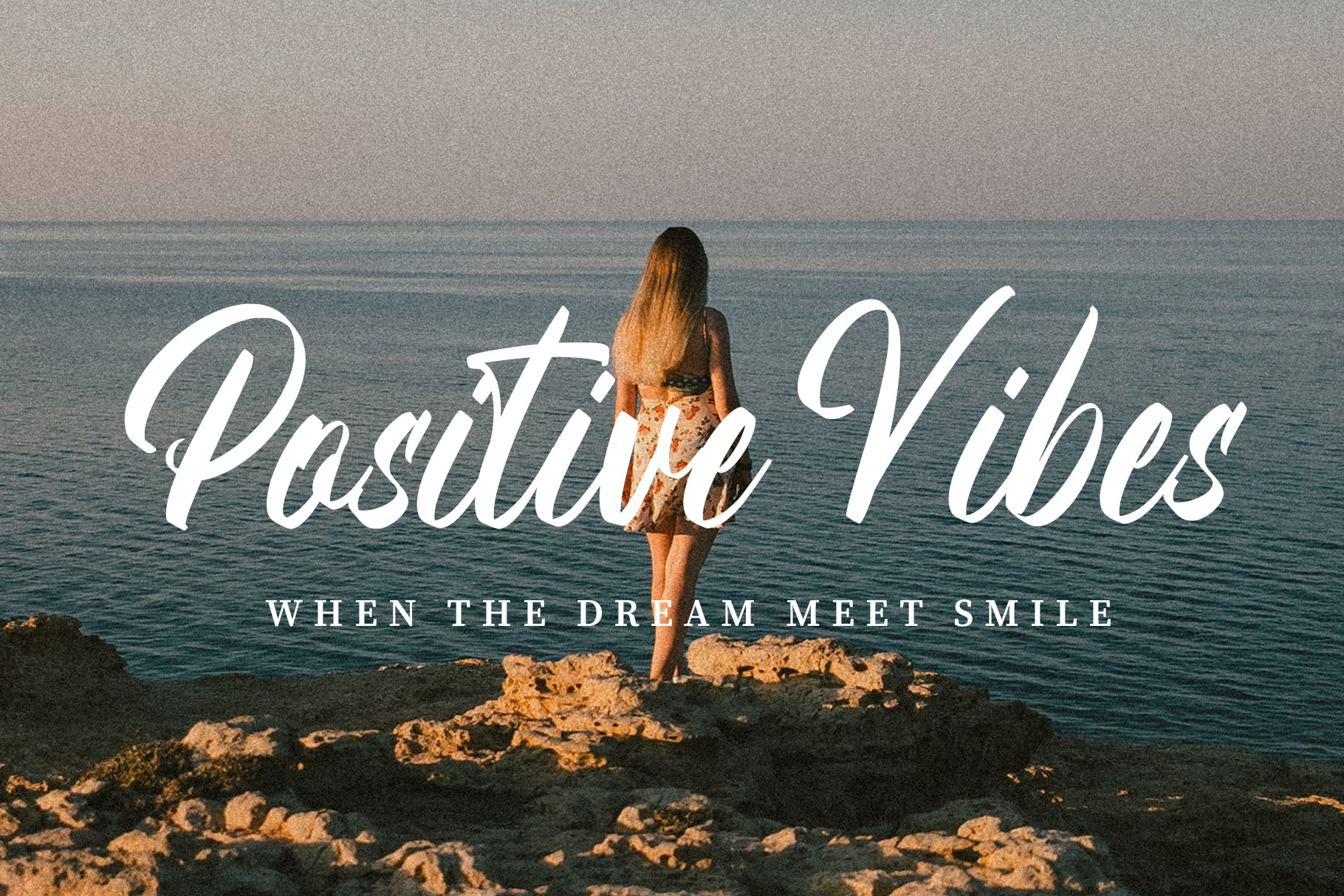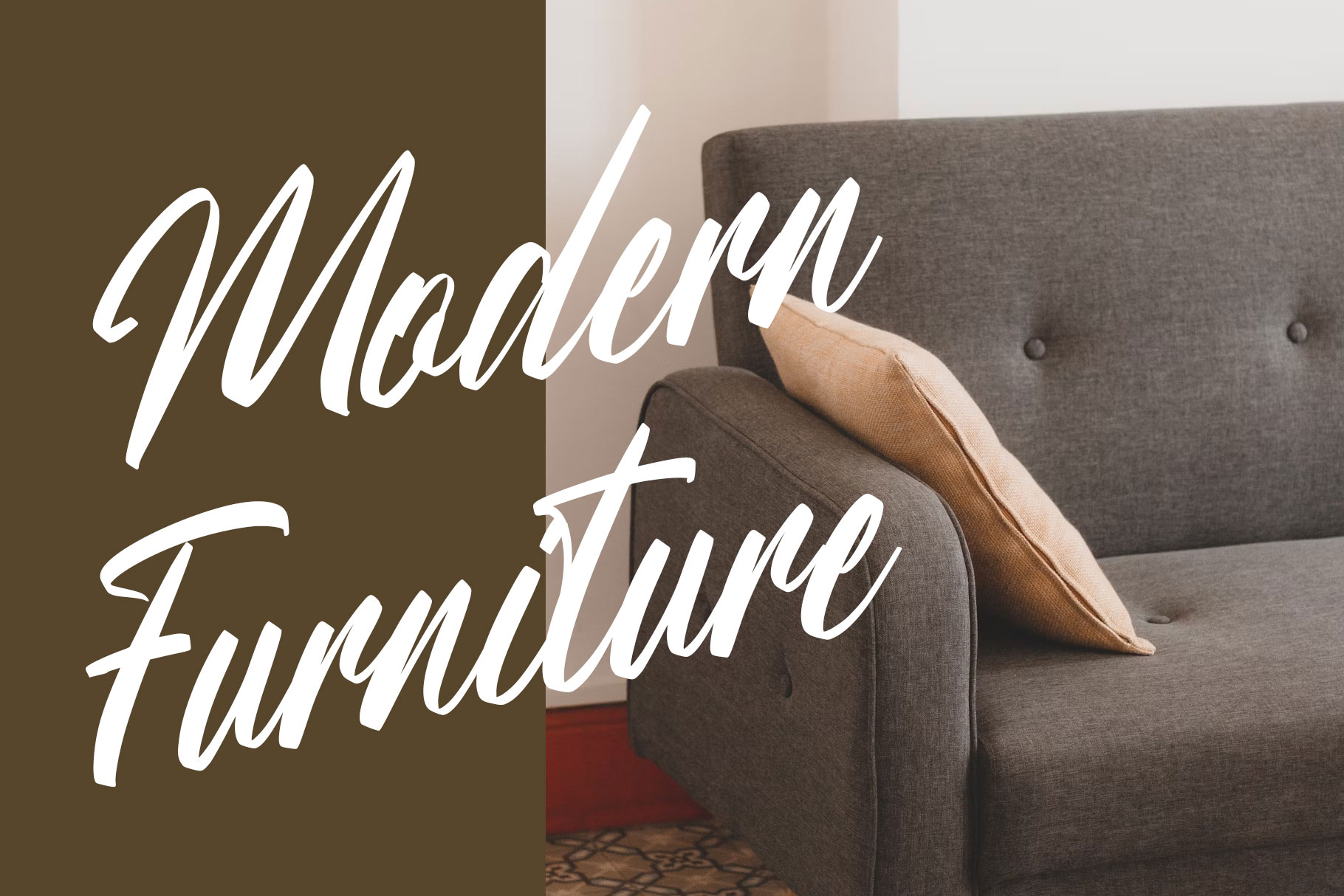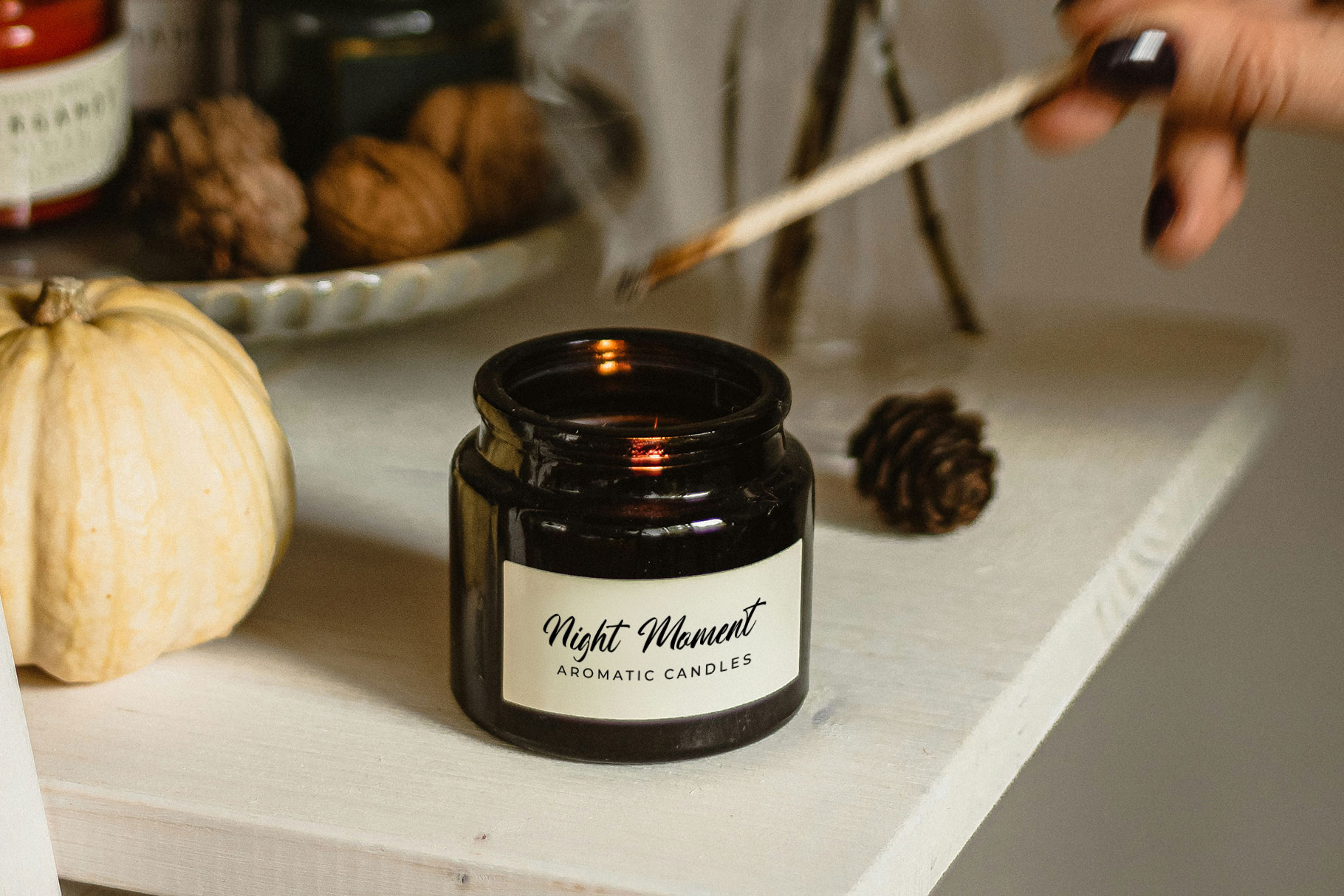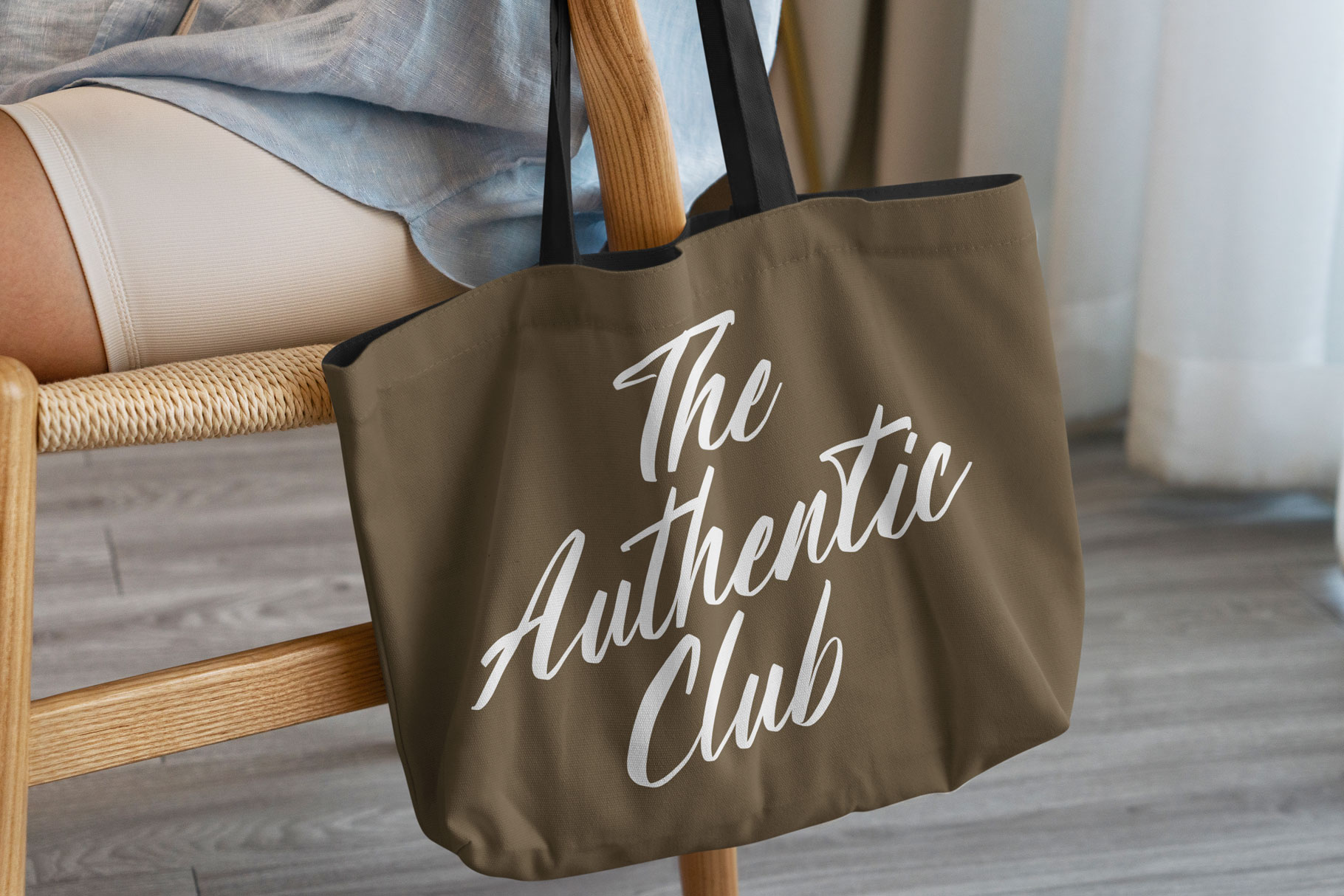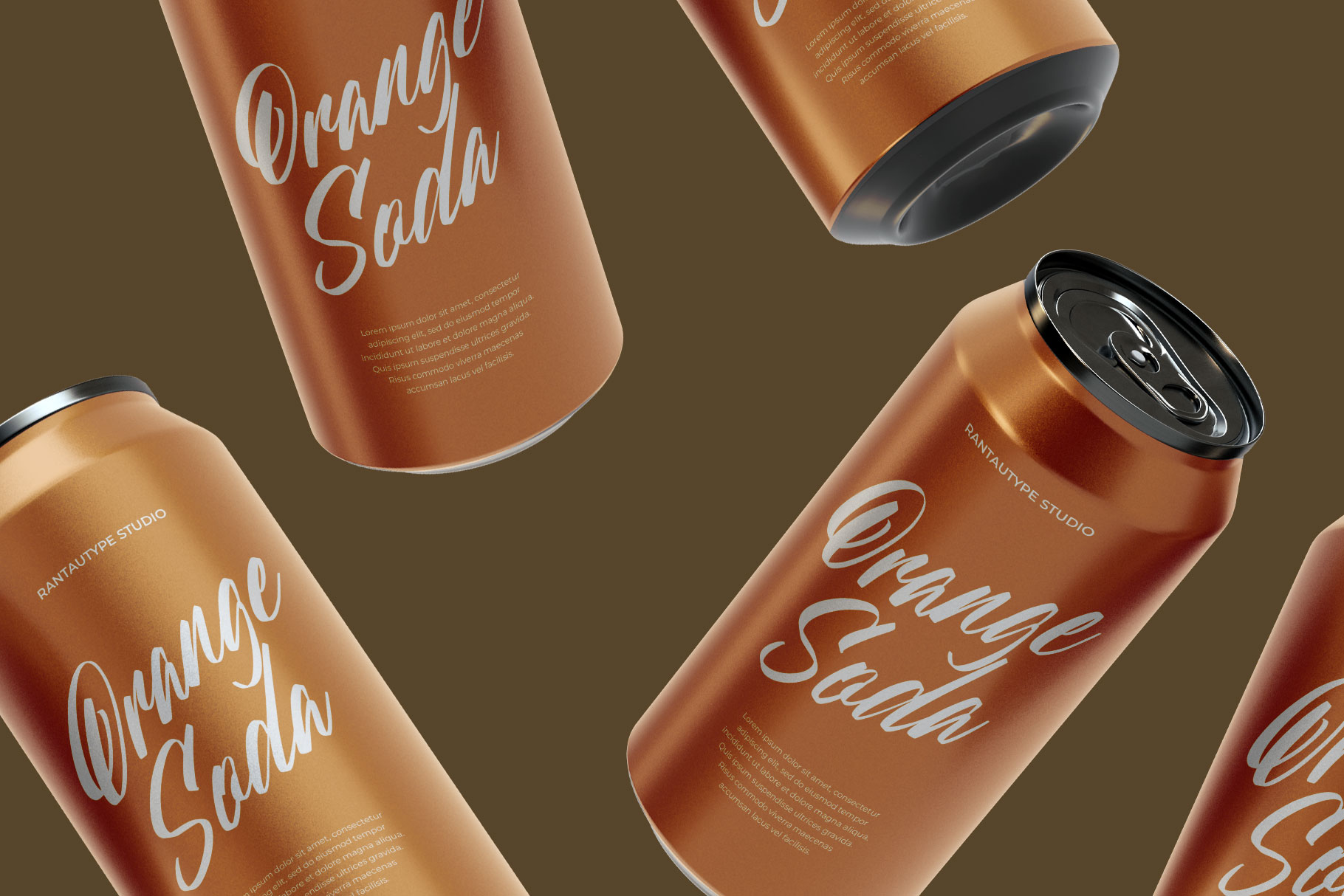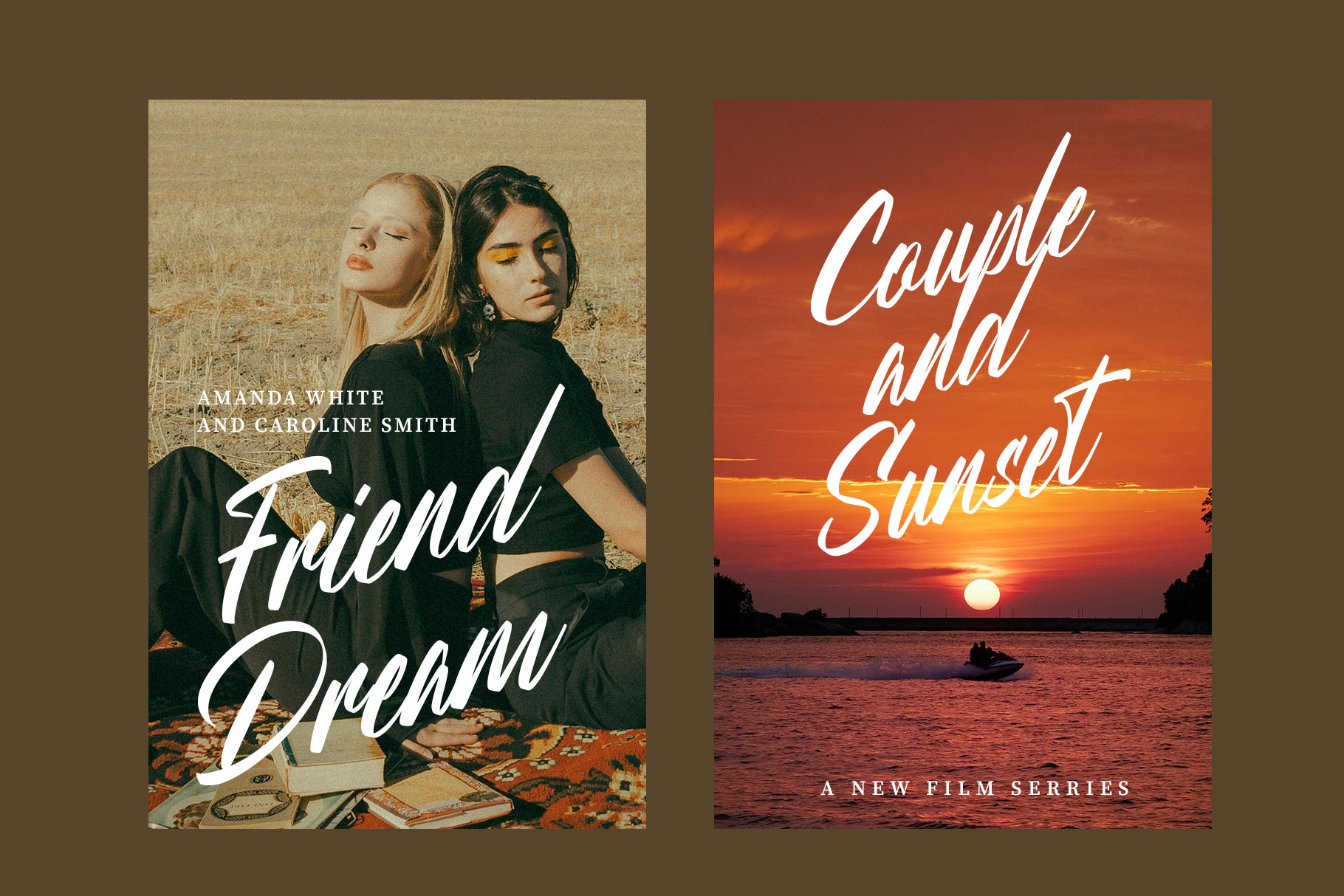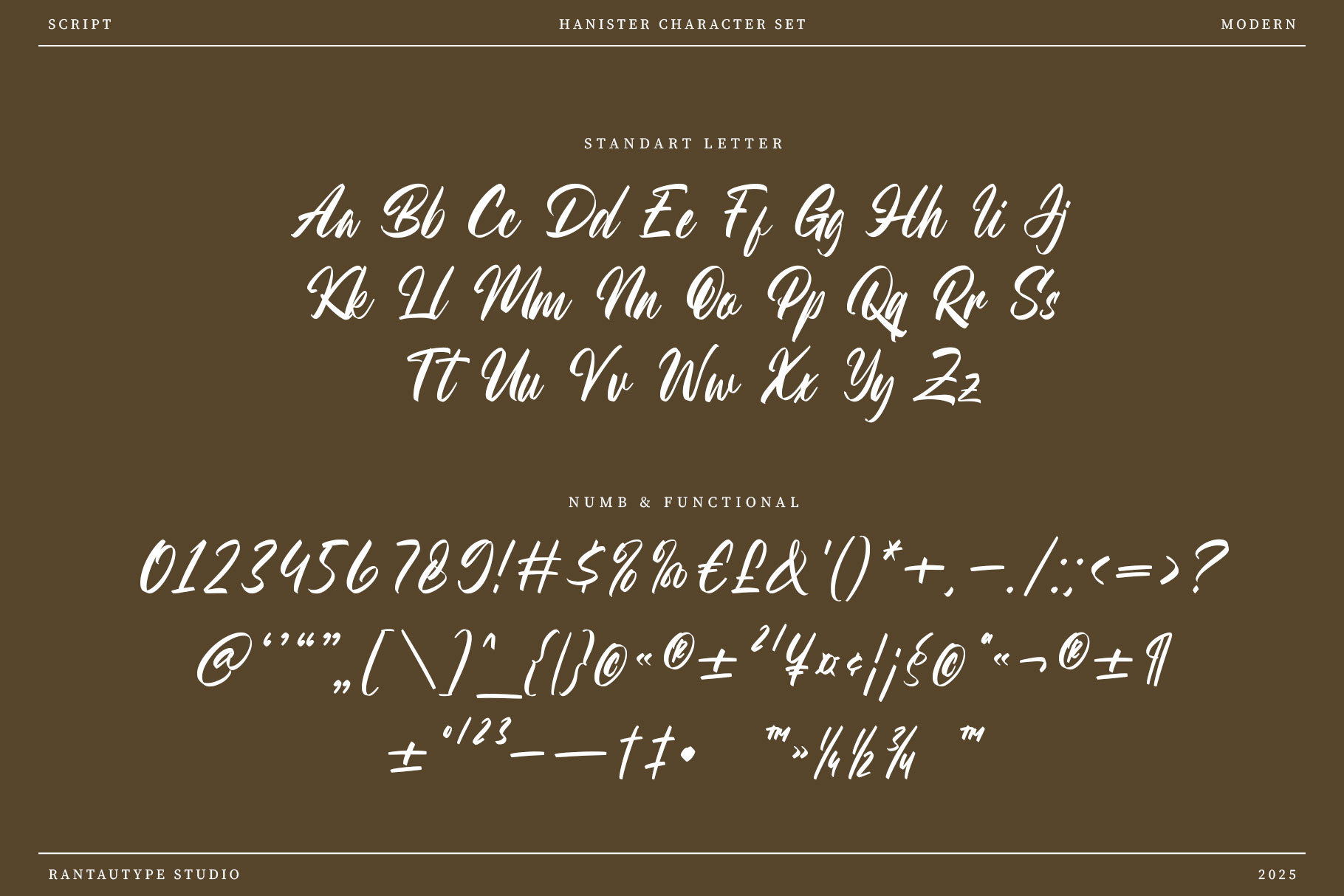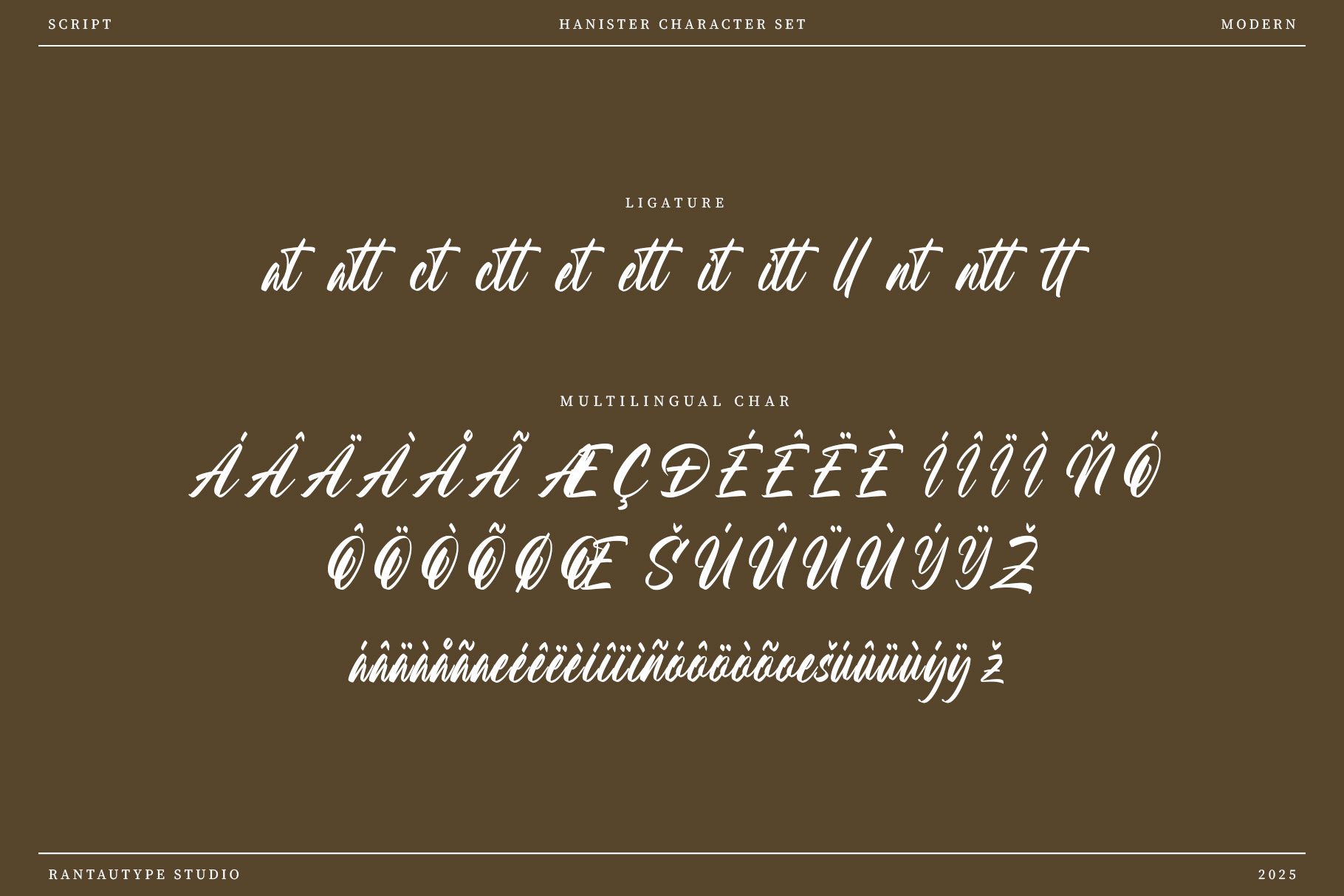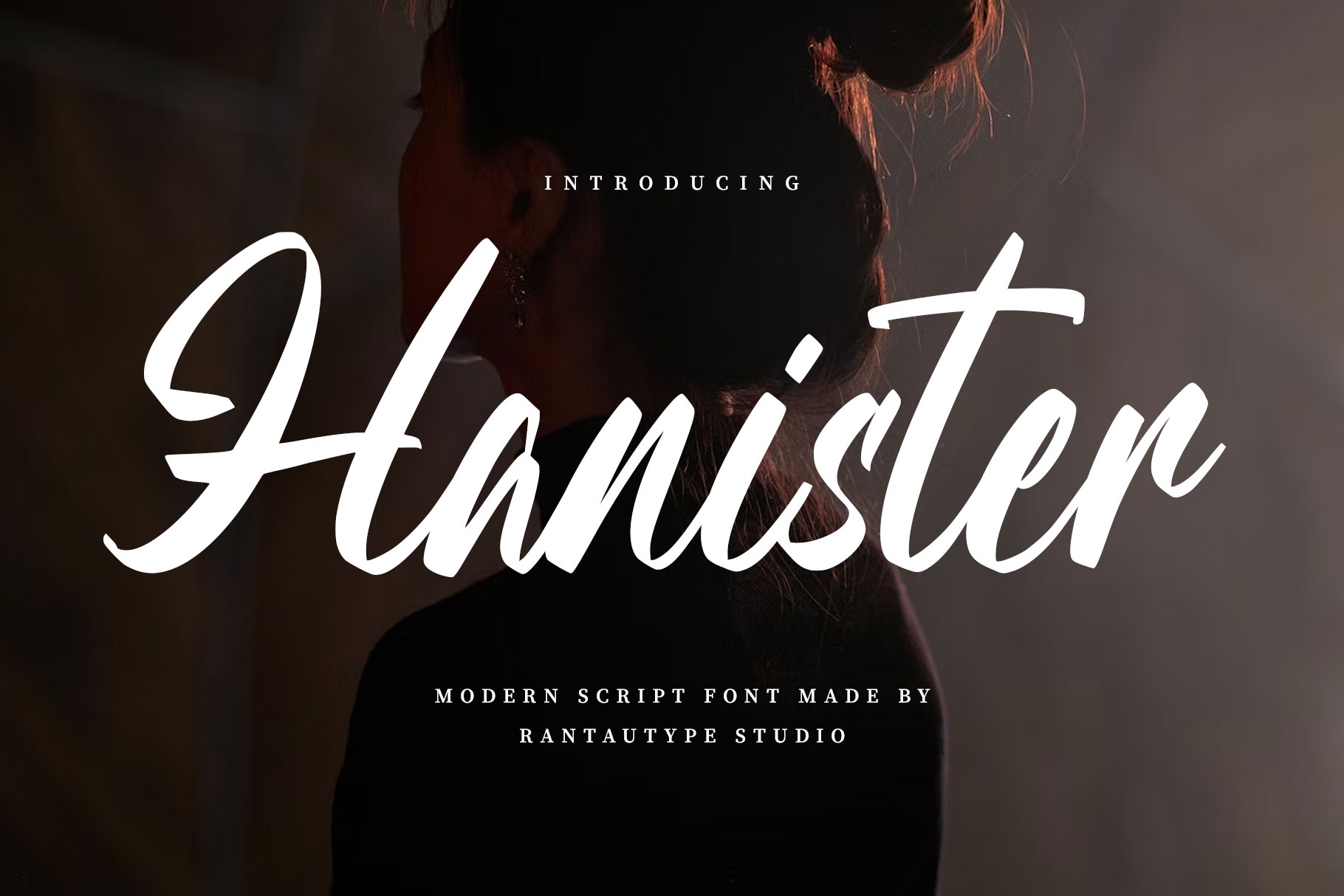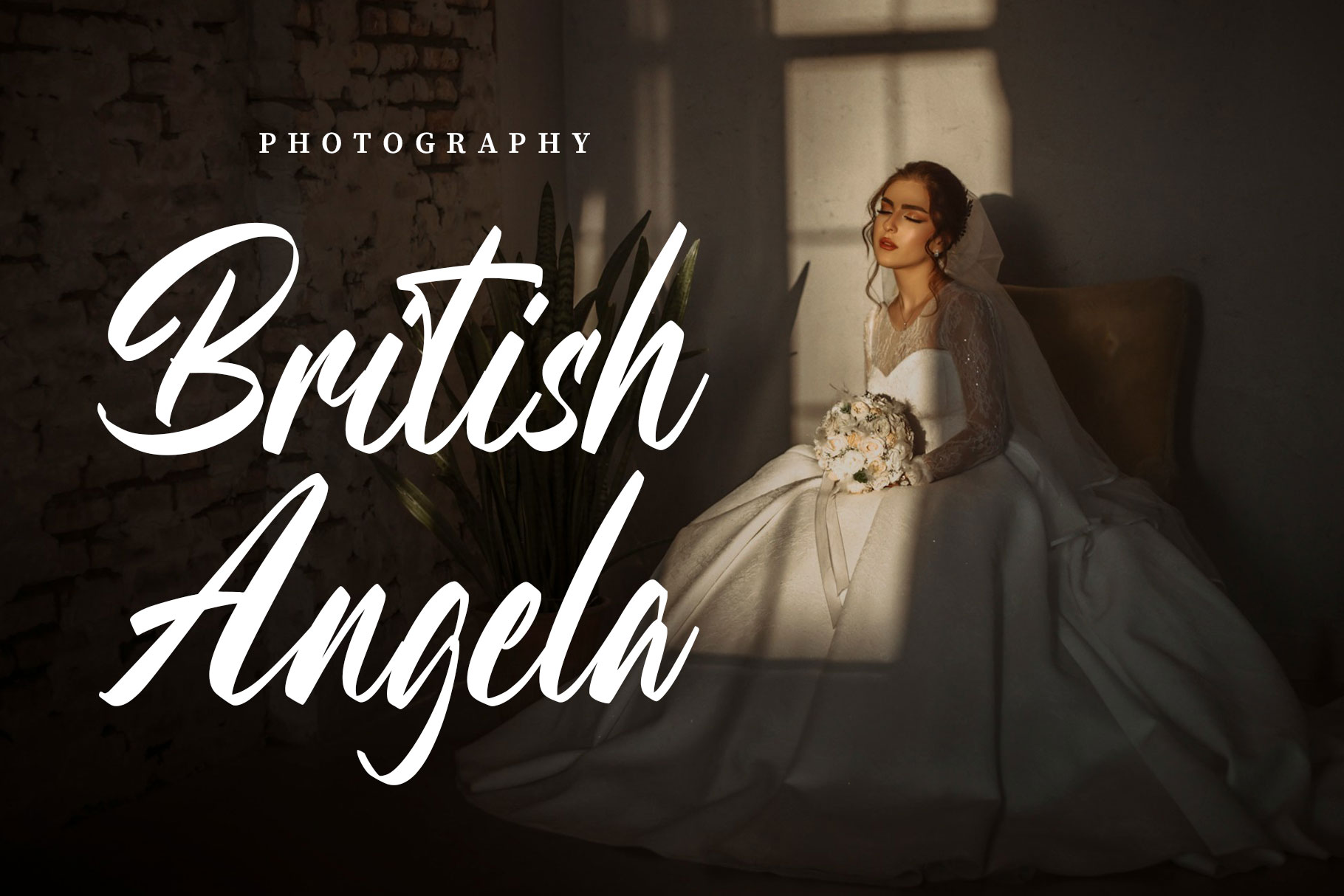
Hanister Modern Script Font
Hanister is modern script font with casual look. Hanister is a perfectly choice for any creative endeavor, creating, modern, lifestyle design such as logotype, title, cover, branding, invitations, wedding designs, display and magazine, social media posts, advertisements, printed quotes, product packaging, corporate brand, product designs, labels, photography, watermarks, special events and any other project with modern touch.